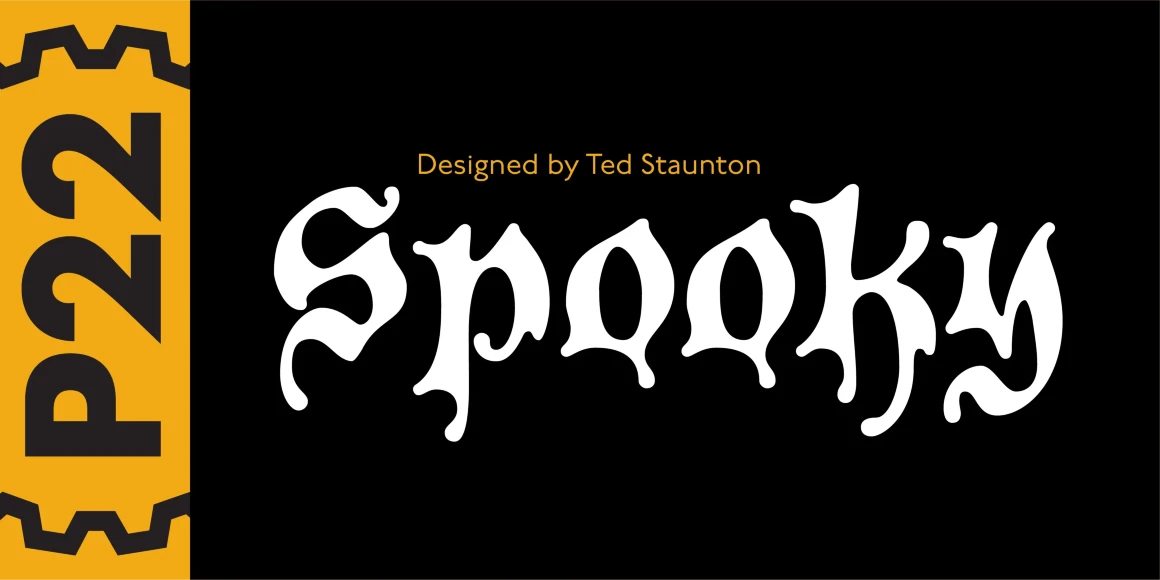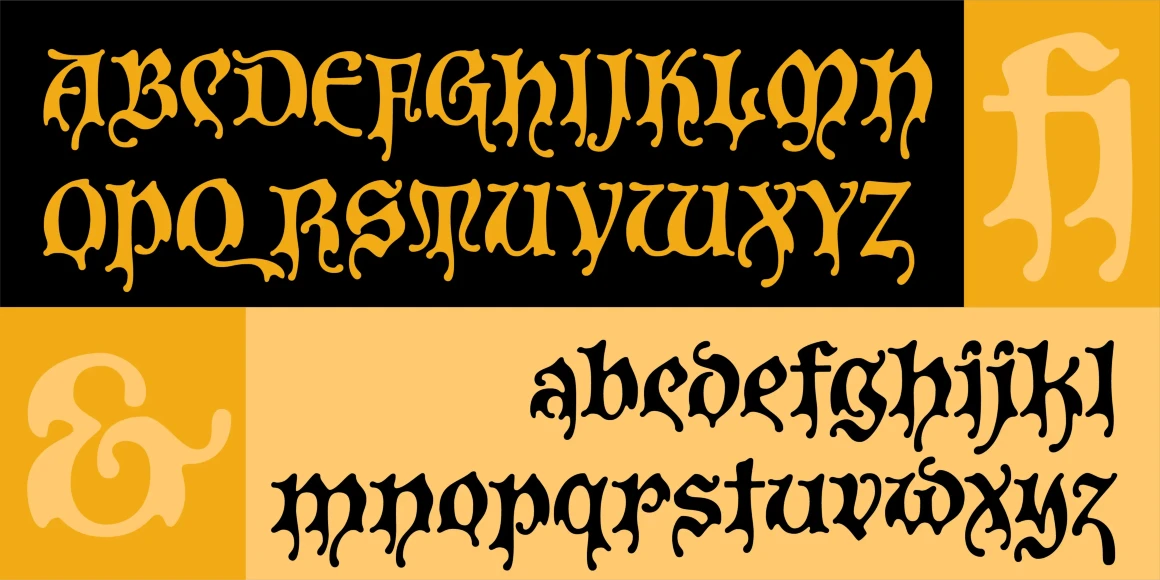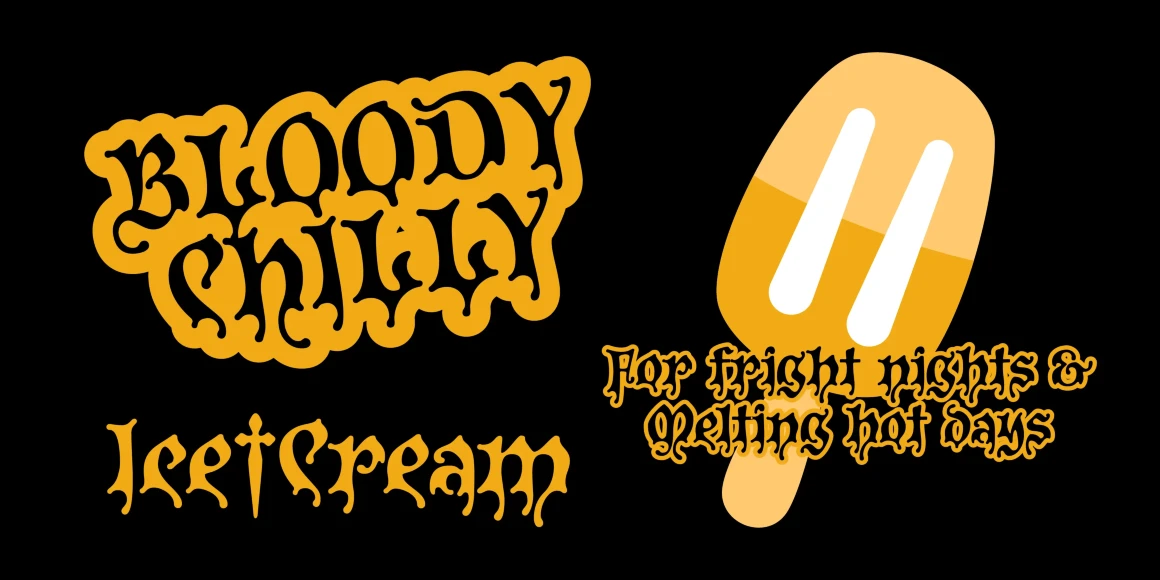
Spooky
Spooky is a chilling font that is evocative of the type used in horror films and posters. It’s creepy, it’s kooky…it’s spooky. Perfect for invitations, banners or other ghastly uses.
Designed by Ted Staunton